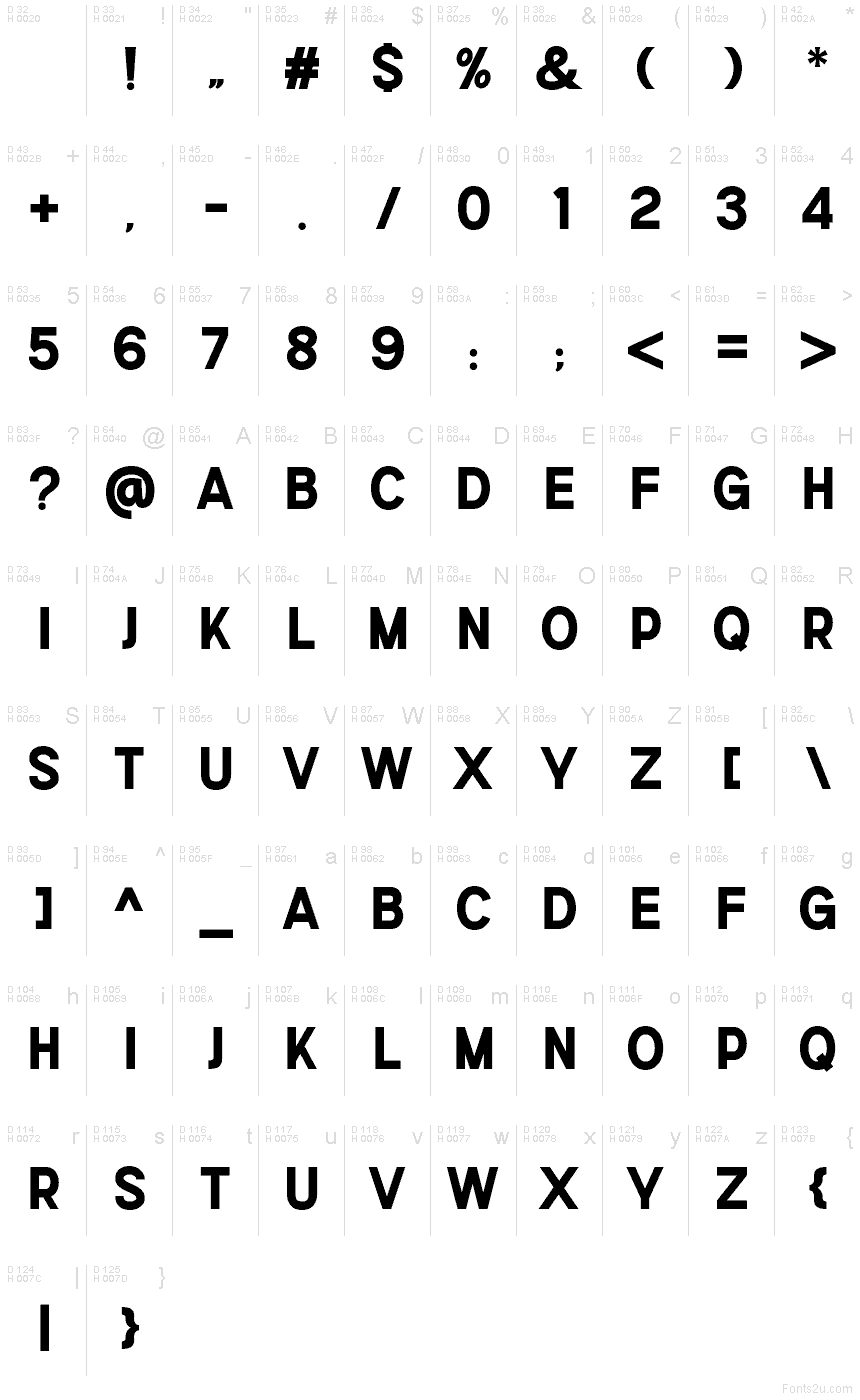
Agains
Agains font by Setyo Wati is a tall, geometric sans serif font that embodies modernist principles. Its clean lines and corporate feel make for an exquisite professional typeface that delivers a focused message with every typed word.